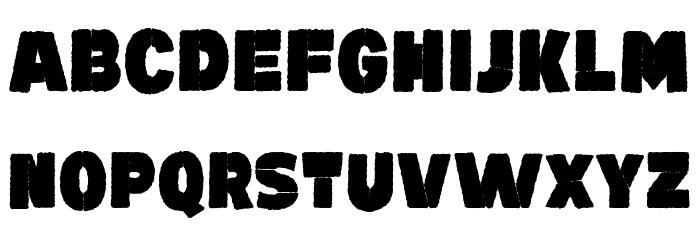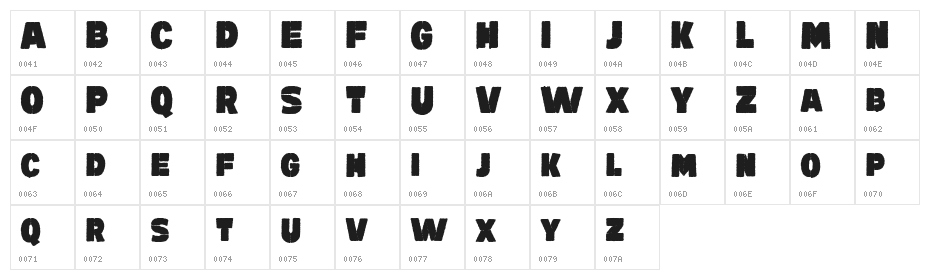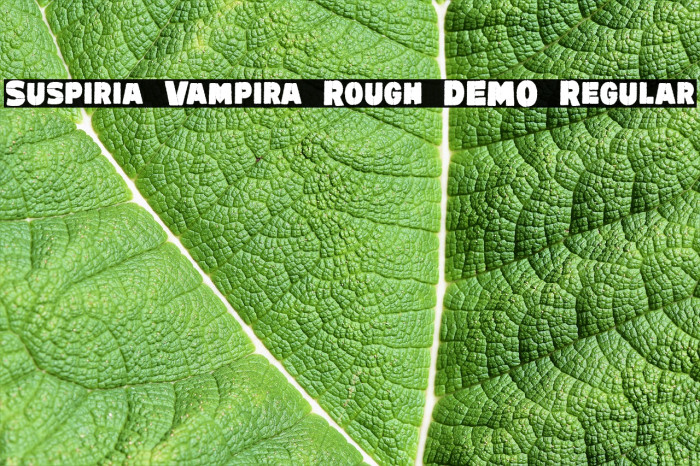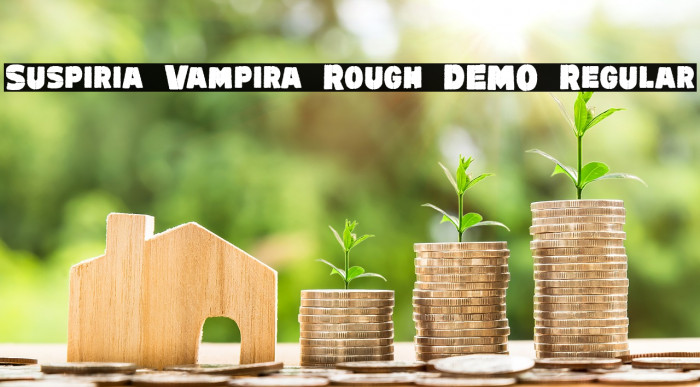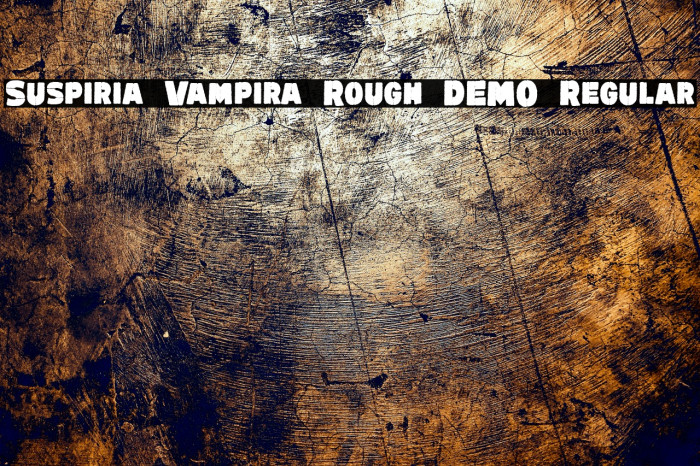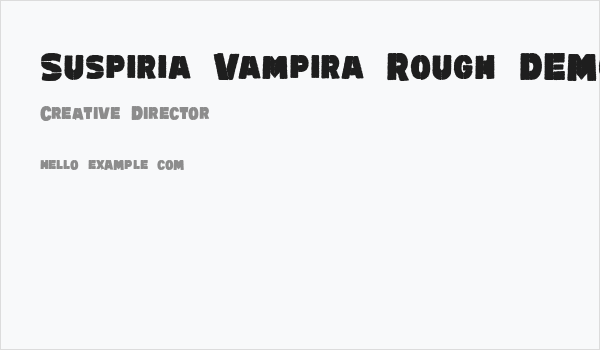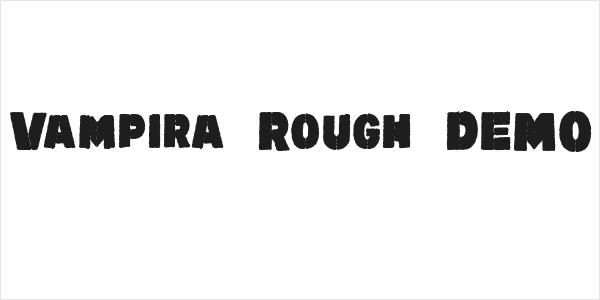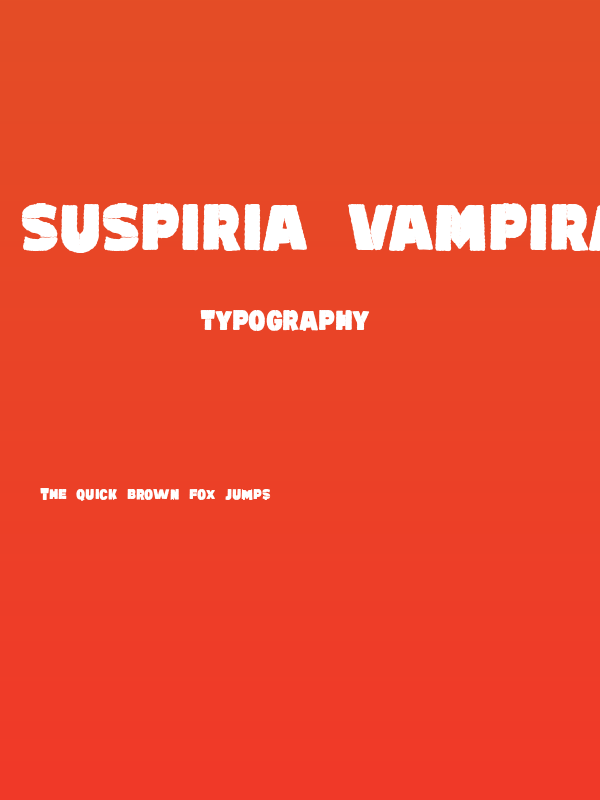
Suspiria Vampira Rough DEMO Regular Font
Suspiria Vampira Rough DEMO Regular Description
This font features a bold and rugged design, characterized by its rough, textured edges that give it a distressed, vintage appearance. The uppercase letters are prominent and impactful, making them ideal for creating attention-grabbing headlines or titles. The font's style evokes a sense of mystery and drama, reminiscent of classic horror or thriller themes. Its unique texture adds depth and character, making it suitable for projects that require a bold statement. The overall design is both artistic and functional, allowing for creative expression while maintaining readability.
| Overall Style | Vintage, Decorative |
| Proposed Projects | Ideal for horror-themed posters, vintage advertisements, book covers, and dramatic headlines. |